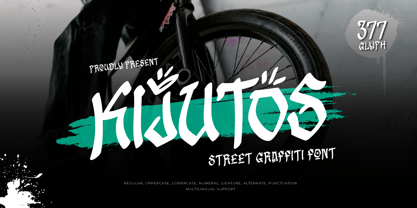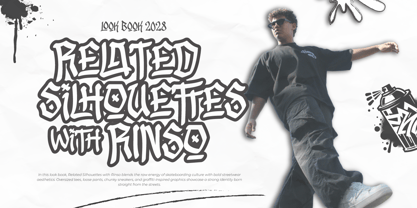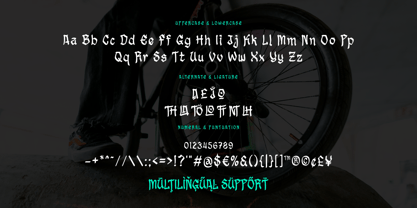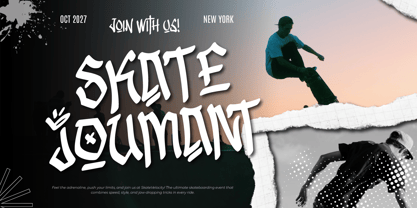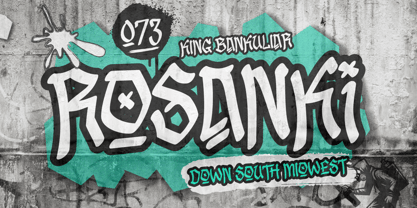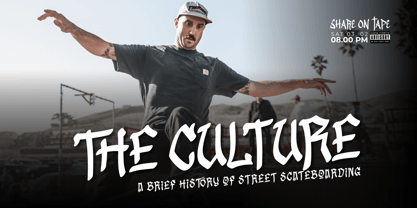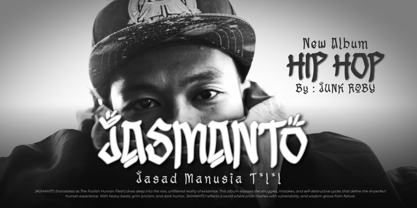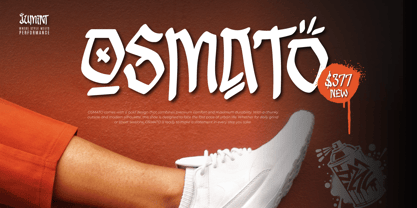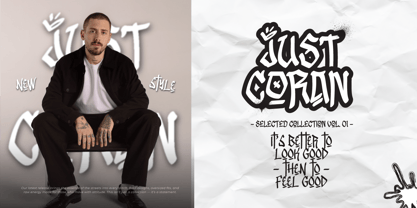
Kijutos
by Twinletter
The Kijutos Font Family was designed by Rozikan and published by Twinletter. Kijutos contains 1 styles. More about this family
Kijutos is a raw and energetic street graffiti font that channels the bold spirit of urban expression. Designed with dynamic brush strokes and authentic graffiti flair, this font brings the rebellious pulse of city streets straight into your design work.
Whether you're creating bold music posters, edgy apparel designs, skate branding, or social media content with attitude, Kijutos delivers maximum visual punch. Its sharp angles, expressive curves, and handmade vibe give every letter a sense of motion and impact.
Kijutos includes uppercase and lowercase letters, numbers, punctuation, and multilingual characters—making it flexible and ready to use across diverse creative projects. Inspired by street culture, tagging styles, and underground art, this font is perfect for designers who want to break the rules and grab attention.
Add urban grit and fearless energy to your next design—Kijutos makes your words impossible to ignore.